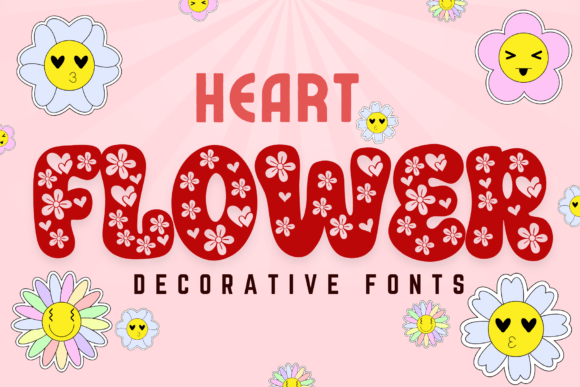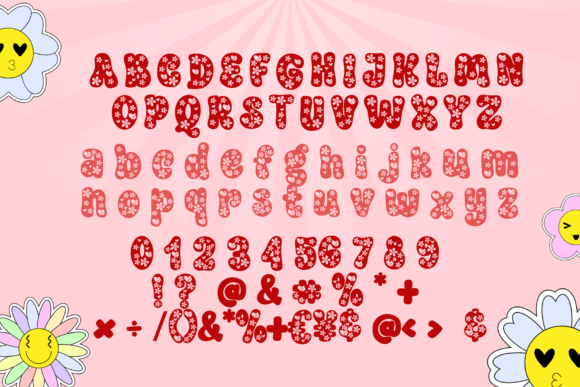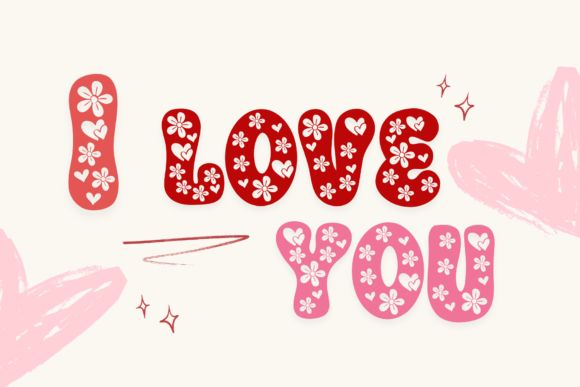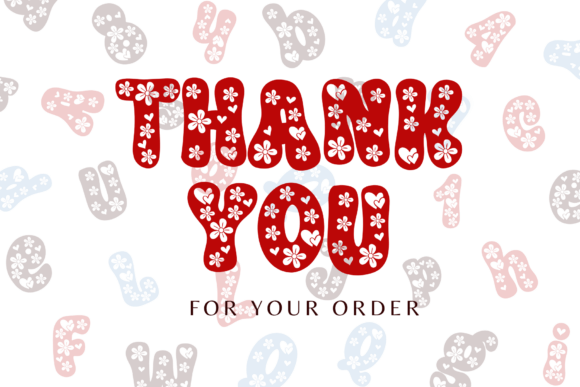
Heart Flower Font
About the Heart Flower Font
The Heart Flower Font is here to transform your projects with its distinctive character and style. Heart Flower is an organic and beautiful decorative font, featuring lovely ornaments. No matter the topic, this font will be an incredible asset to your fonts’ library, as it has the potential to elevate any creation.
Heart Flower’s organic forms make it ideal for headlines, short-form text in branding materials, and packaging design where its decorative elements can shine. It’s also well-suited for invitations, cards, and posters requiring a touch of whimsical elegance. However, its decorative nature makes it less suitable for body text or UI elements where readability is paramount. Avoid using it in long paragraphs or for screen-based applications.
The font’s personality is best described as playful yet elegant. To complement this, pair Heart Flower with a clean sans-serif like Lato for a modern contrast, or a classic serif such as Garamond for a more traditional feel. A simple, geometric sans-serif could also provide a nice counterpoint, creating visual interest without overwhelming the design.
Consider pairing it with a script font for a luxurious feel in wedding invitations or high-end product packaging, but choose a script with similarly controlled curves to maintain balance. Avoid pairing it with overly bold or aggressive fonts; the delicate nature of Heart Flower needs a more subtle counterpart.
Heart Flower Font Usage Examples
Heart Flower Font Example